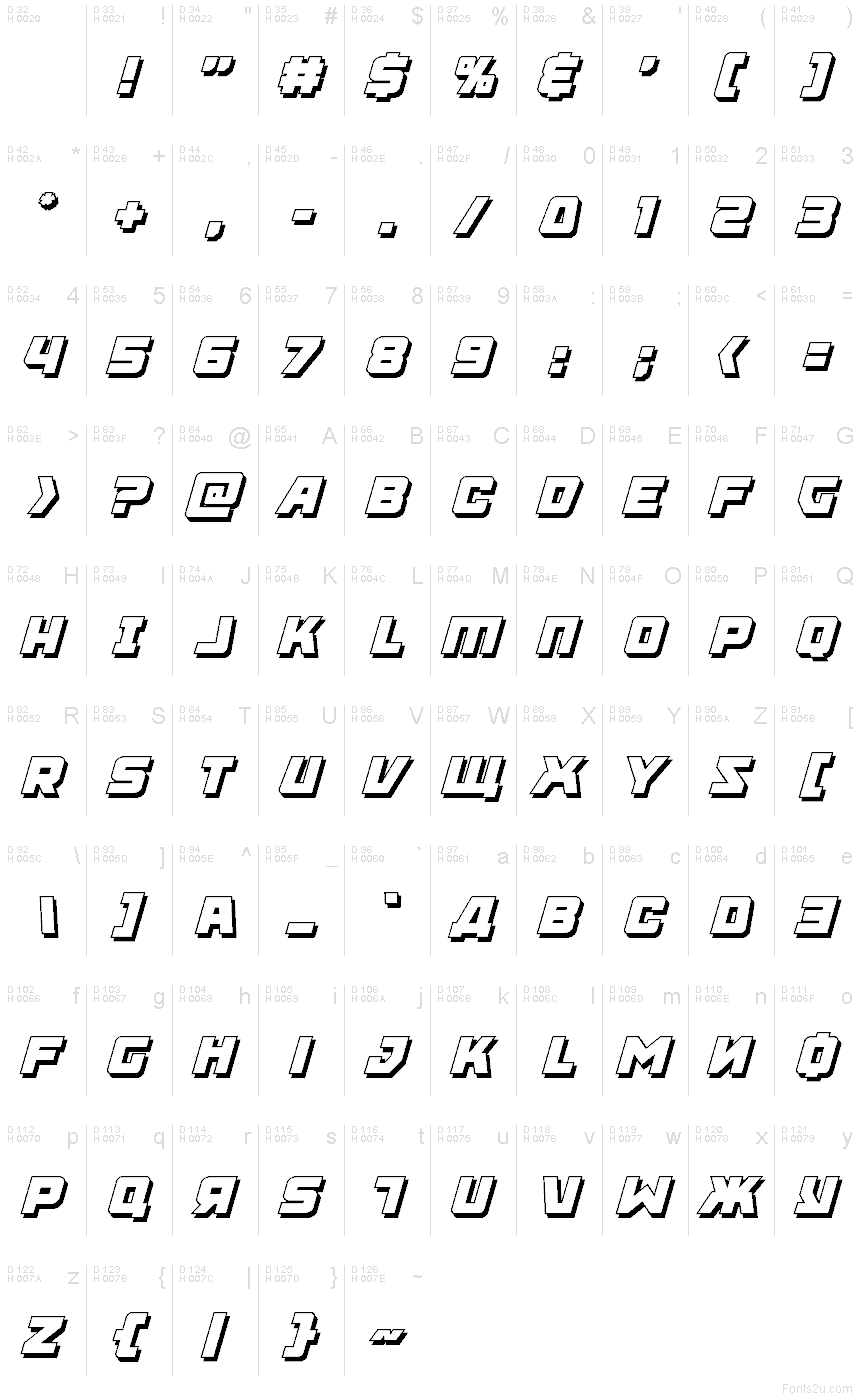
Kremlingrad 3D Italic
Kremlingrad 3D Italic font by Iconian Fonts is a free decorative 3D display font with a bold faux‑Russian twist. Its defining move is the chiseled, forward‑leaning letterforms—blocky, wedge‑cut strokes wrapped in a crisp outline and stepped shadow that feels stamped in steel. The slick italic thrust adds motion, while the beveled depth gives headlines a tactile, poster‑press punch, all within the Kremlingrad family.
Using Kremlingrad 3D Italic, headlines snap with militant rhythm and high-contrast edges that hold up at distance. It shines on esports logos, game titles, action posters, industrial brand marks, event flyers, stickers, and streaming overlays. Set it large and keep tracking tight; pair with a clean grotesk for body copy so this free font can do the heavy lifting up top.